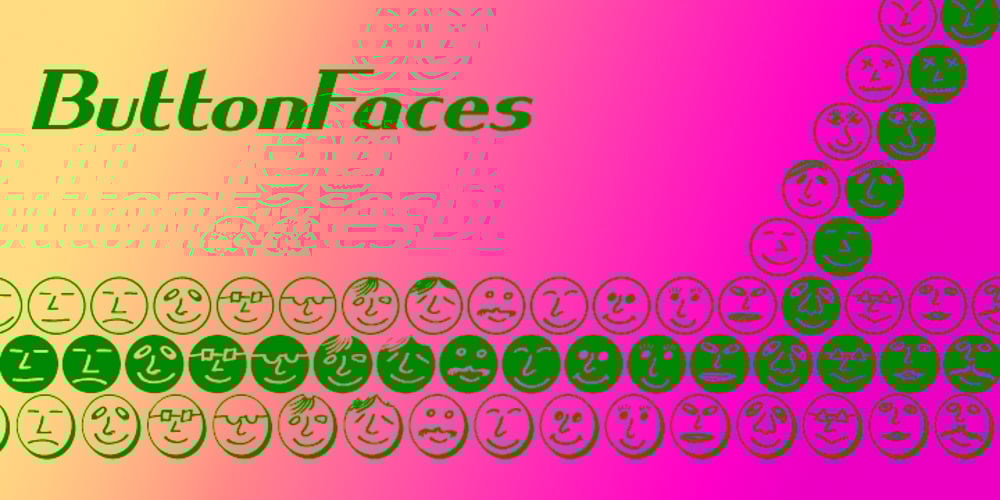
Button Faces
Button Faces font
Button Faces Font Family was designed by Paul James Lloyd and published by Greater Albion Typefounders. Button Faces contains 3 styles and family package options. ButtonFaces explores just how much emotion and description of a character can be put into a simple iconic representation of a face. Use them as ‘Emoticons’ or traditional printers ornaments.